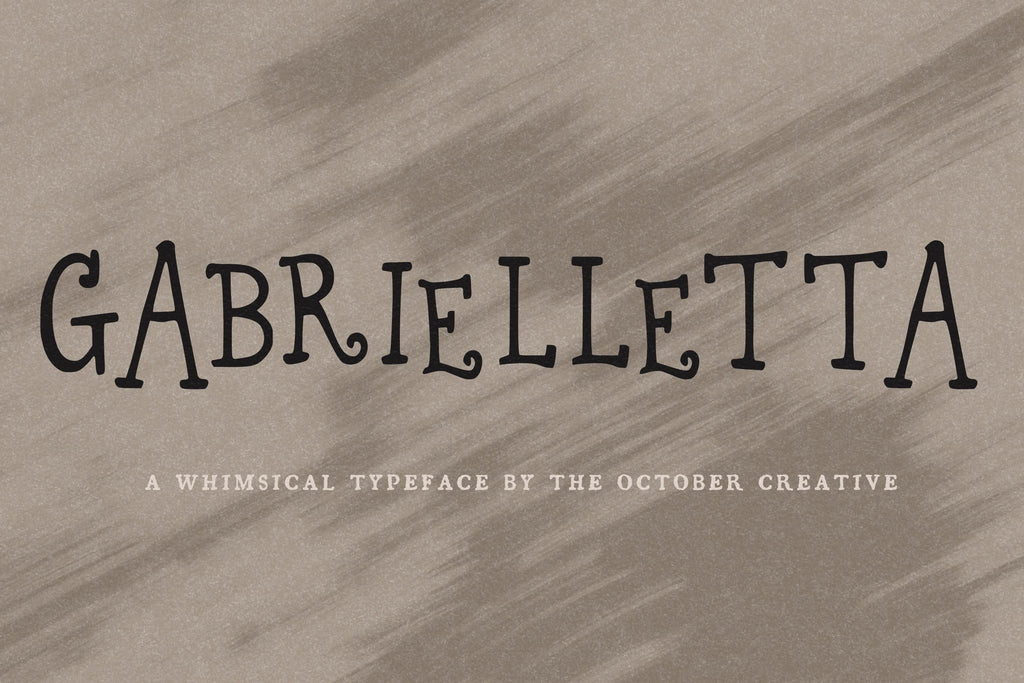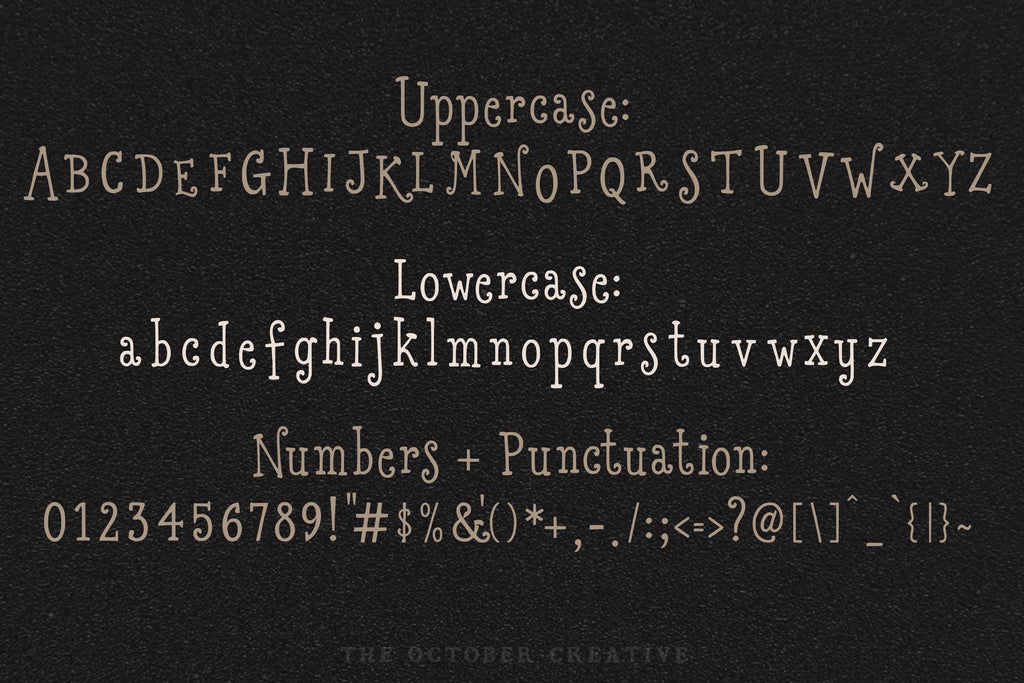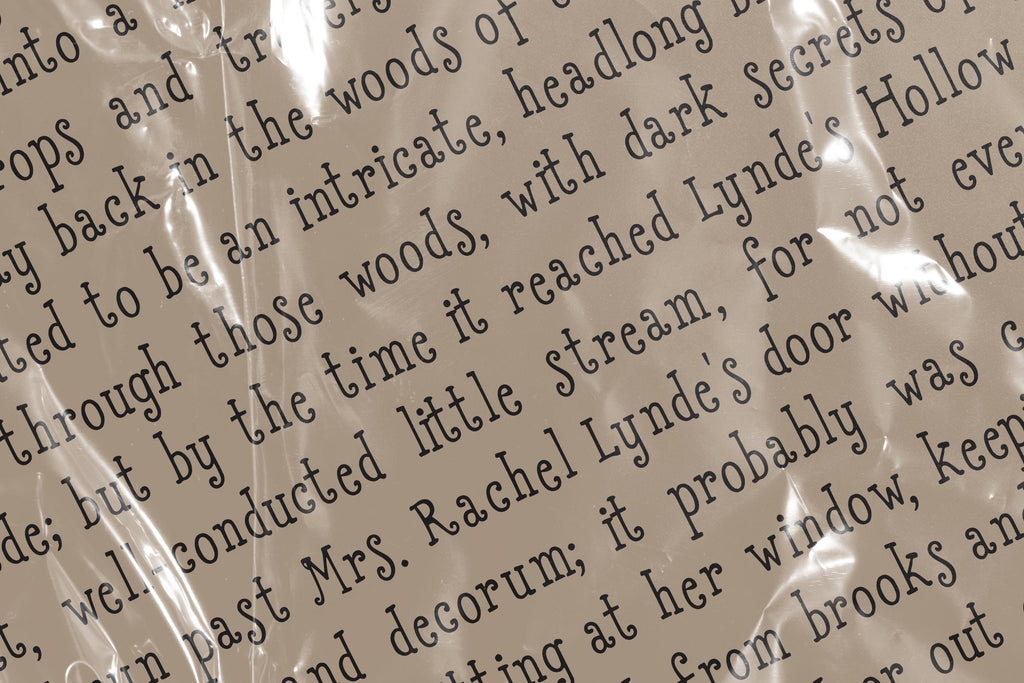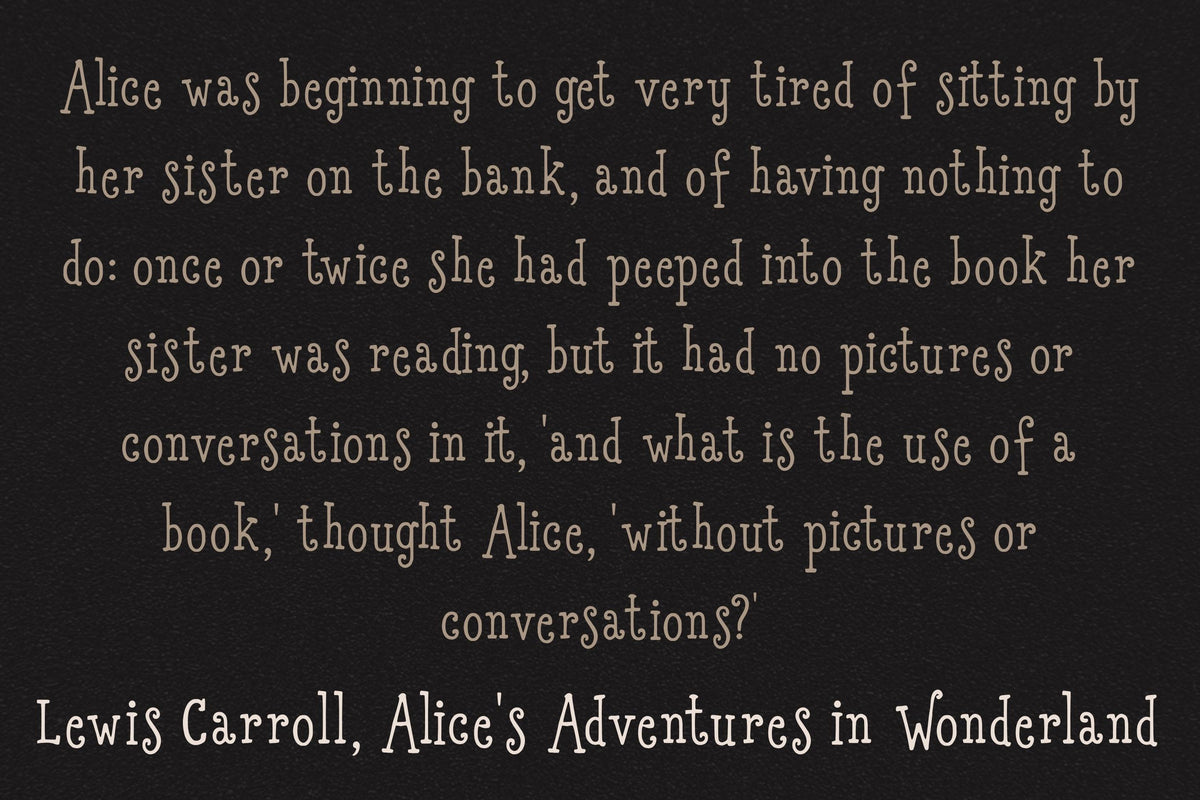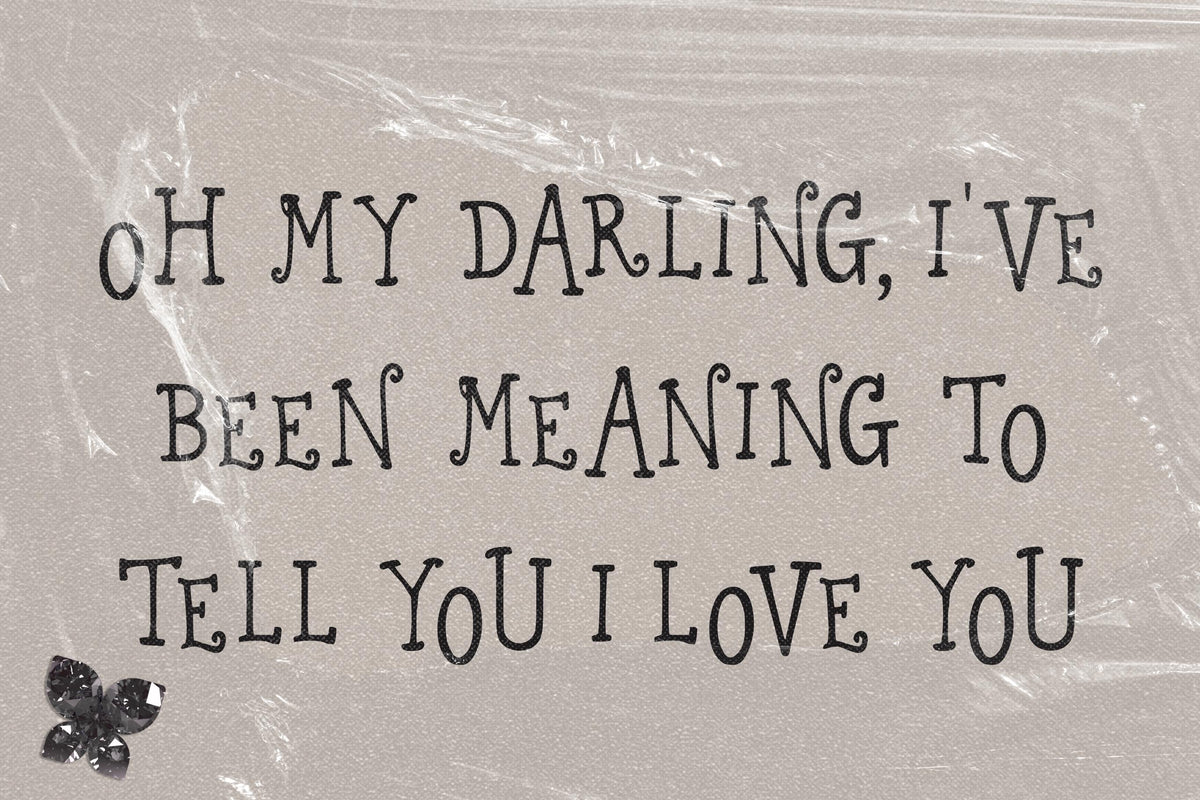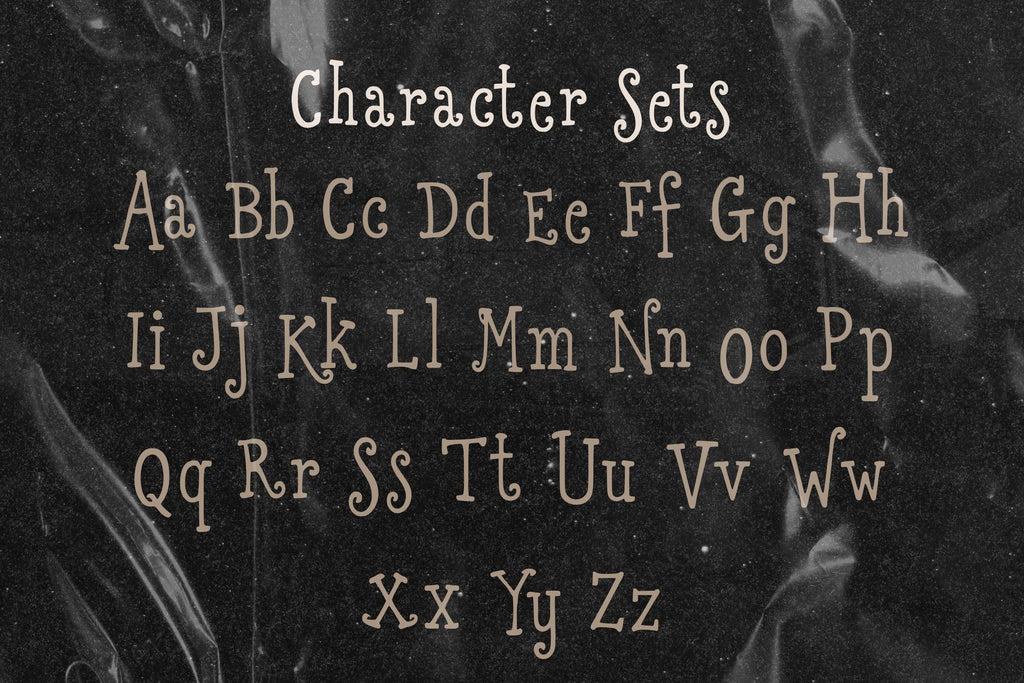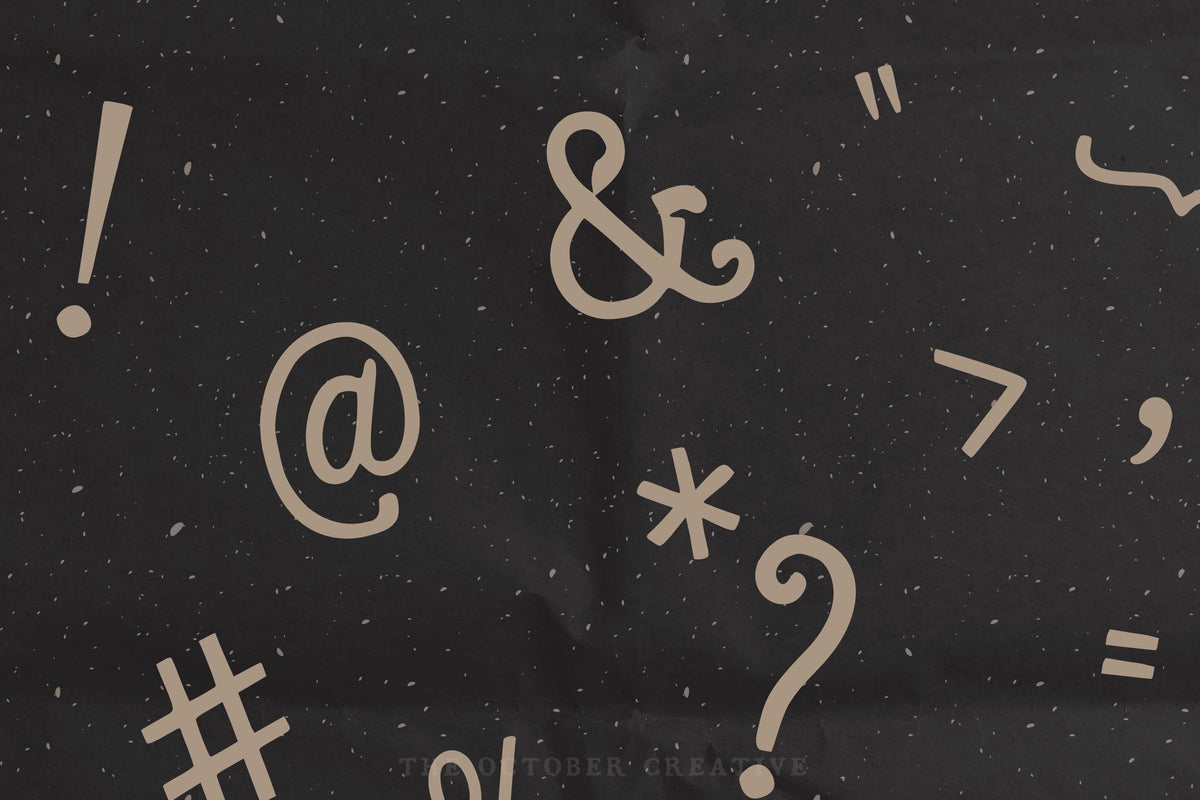
Gabrielletta Font
Gabrielletta is a readable, wobbly serif font with upright letters and slightly uneven heights. It works as a friendly text font for cafe menus, labels, children's book text, and classroom printables.
• One style: Gabrielletta Regular
• Uppercase A to Z, lowercase a to z, numbers 0 to 9, and every standard keyboard punctuation mark and symbol
• Curly quotes and apostrophes, dashes, an ellipsis, and a bullet
• Common accented letters for names, like José, Chloé, Zoë, Renée, and Françoise
• One Regular style, with no alternate characters or ligatures.